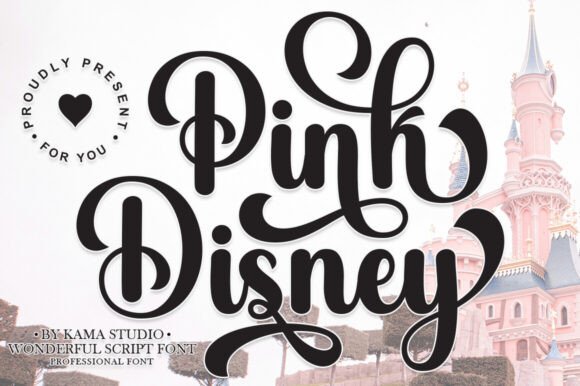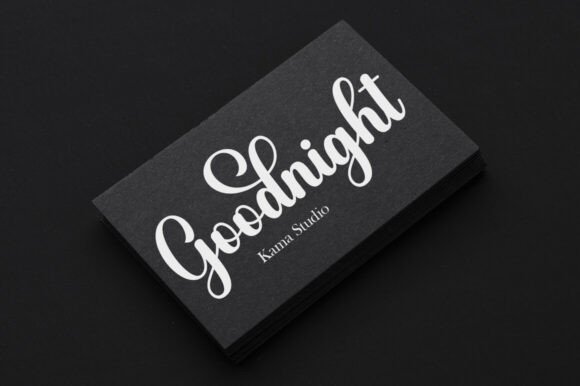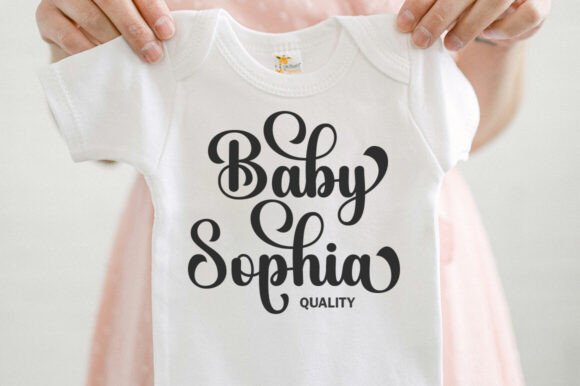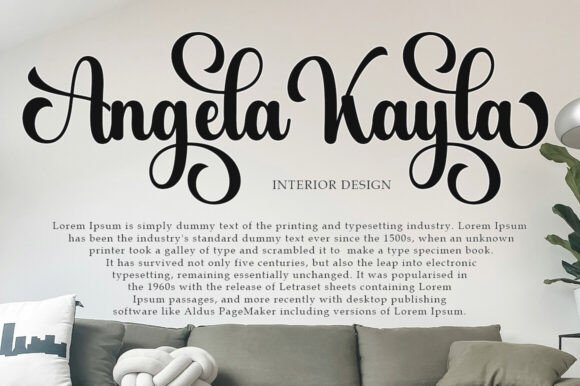
Pink Disney Font
About the Pink Disney Font
Welcome to the world of Pink Disney Font, a typeface that will inspire your next great project. Pink Disney feels so charming and elegant. This stunning script font is a stylish homage to classic calligraphy. It can be used for a variety of purposes, such as logos, product packaging, wedding invitations, branding, headlines, signage, labels, signatures, book covers, posters, quotes, and more.
Pink Disney’s elegant, yet playful personality makes it ideal for projects requiring a touch of vintage charm. It excels in headlines, logos, and short text blocks on packaging or invitations where its delicate flourishes can be fully appreciated. However, its ornate style is less suitable for body text or UI elements where readability is paramount.
Consider pairing Pink Disney with a clean sans-serif like Helvetica Neue for a modern contrast, or a classic serif such as Garamond for a more traditional feel. For a touch of whimsy, a playful rounded sans-serif could also work well. Avoid pairing it with other highly decorative scripts, which would create visual clutter.
Ultimately, this font best suits brands and projects that evoke feelings of nostalgia, romance, or sophisticated playfulness – think artisanal products, boutique businesses, or vintage-inspired events.
Pink Disney Font Usage Examples
Pink Disney Font Example